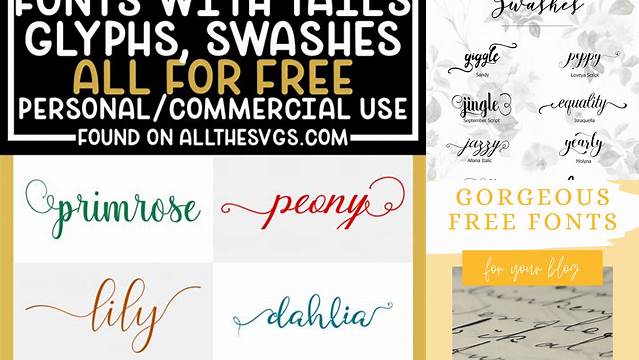
Free Fonts With Glyphs And Swashes: DaFont's Treasure Trove
Hey guys, are you ready to dive into the exciting world of typography? Today, we're exploring free fonts with glyphs and swashes, specifically within the amazing DaFont platform. This article will be your ultimate guide, helping you navigate the vast selection of fonts available, understand the magic behind glyphs and swashes, and, ultimately, enhance your creative projects. So, grab your coffee, settle in, and let's get started!
DaFont: Your Gateway to Free Fonts Galore
When it comes to finding free fonts with glyphs and swashes, DaFont is a name that consistently pops up. It’s a true treasure trove for designers, hobbyists, and anyone looking to add a touch of flair to their work. DaFont, with its user-friendly interface and massive library, has become a go-to destination for font enthusiasts worldwide. You'll find everything from elegant scripts to playful display fonts, all readily available for download and use. But what makes DaFont so special? Well, apart from the sheer volume of fonts, the platform's organization is key. Fonts are categorized, tagged, and often include previews, making it easy to find exactly what you need. The site also allows users to sort fonts by popularity, date added, and even the type of license. This comprehensive approach ensures you're not just browsing a random collection of fonts, but actively exploring a curated selection tailored to your specific needs.
DaFont’s community aspect is also worth mentioning. Many designers upload their fonts to the platform, often including extensive character sets and detailed descriptions of their creations. Users can rate fonts, leave comments, and even contact the font creators directly. This interaction fosters a collaborative environment, and the feedback often helps font designers improve their work. It also provides users with valuable insights into the fonts themselves, helping them make informed decisions. The platform also regularly updates its library with new fonts, meaning there’s always something fresh to discover. Whether you're a seasoned designer or just starting out, DaFont offers an unparalleled resource for finding quality fonts without breaking the bank.
Unveiling the Magic of Glyphs and Swashes in Free Fonts
So, what exactly are glyphs and swashes, and why are they so important in the world of typography? Well, let's break it down. Glyphs are individual character representations within a font. They’re the building blocks of letters, numbers, punctuation marks, and special symbols. A font's glyph set determines the visual style and range of characters it can display. Think of it like this: a standard font might include basic glyphs for the alphabet, numbers, and common punctuation. However, a font with a rich glyph set could contain numerous alternate characters, ligatures, and special symbols, giving you more creative flexibility. Swashes, on the other hand, are ornamental extensions added to the letters. They can take the form of elegant flourishes, playful tails, or other decorative elements that enhance the aesthetic appeal of a font.
Swashes are most commonly seen in script and calligraphic fonts. They're used to create a sense of movement, add visual interest, and even connect letters in a more fluid manner. Glyphs and swashes are not just about aesthetics; they play a key role in how we perceive and interact with text. They can evoke specific moods, convey certain messages, and even influence the readability of a design. For instance, a font with elaborate swashes might be perfect for a wedding invitation, while a font with clean glyphs might be ideal for body text in a website. The availability of these features is an important factor to consider when searching for free fonts with glyphs and swashes.
When choosing a font, consider its glyph and swash options. Fonts with a wider variety of glyphs and swashes offer greater design flexibility. You can experiment with different character variations to create unique and eye-catching designs. Many font foundries now offer fonts with OpenType features that enable glyphs and swashes. OpenType fonts allow you to access these special characters through design software. Using glyphs and swashes effectively can elevate your designs, making them more visually appealing and memorable. So, keep an eye out for fonts that offer these features, and don't be afraid to experiment.
Exploring Free Fonts with Swashes: A Designer's Delight
Free fonts with swashes are a designer's secret weapon. They can instantly elevate any design project, adding a touch of elegance, sophistication, or even playfulness. The key to effectively using swashes is to understand the context of your design and choose fonts that complement your message. For example, a swash font would be perfect for a logo. The choice of font will be determined by the message. Consider the overall tone you are aiming for. A flowing script font with elaborate swashes might be ideal for a wedding invitation. A more understated swash font could be perfect for a brand identity. DaFont offers an abundance of swash fonts. Explore the platform's extensive catalog to find the perfect fit.
When choosing swash fonts, pay attention to the details. Consider the weight, style, and overall design of the font. Does it match your project's aesthetic? Do the swashes complement the letters? Do they enhance the readability of the text or make it difficult to decipher? Swashes can be subtle or bold, and their impact depends on your specific design needs. Subtle swashes often add a touch of elegance without overwhelming the design. Bold swashes can be used for emphasis, creating a strong visual statement. Test different swash font options to determine what works best for your design. Don't be afraid to experiment. Swashes add uniqueness. Using swash fonts effectively can make a huge difference in the visual impact of your design.
Remember to consider the context of your project. Where will the font be used? Is it for a website, a print ad, or a social media post? The environment will influence the font selection. Consider the target audience. Is the design aimed at a young, energetic audience or a sophisticated, discerning clientele? The audience will have an influence. By carefully considering the context, you can choose free fonts with swashes that will make a lasting impression. Using swashes effectively will provide significant design benefits.
Top DaFont Picks: Popular Free Fonts with Glyphs and Swashes
Navigating the vast world of free fonts with glyphs and swashes on DaFont can be a little overwhelming. But don't worry, we're here to help! This section will highlight some of the most popular and highly-rated fonts available on the platform, providing you with a starting point for your font exploration. These picks are based on user ratings, download counts, and overall design quality. They're all free for personal use, with many also available for commercial projects.
One of the standouts in the script category is